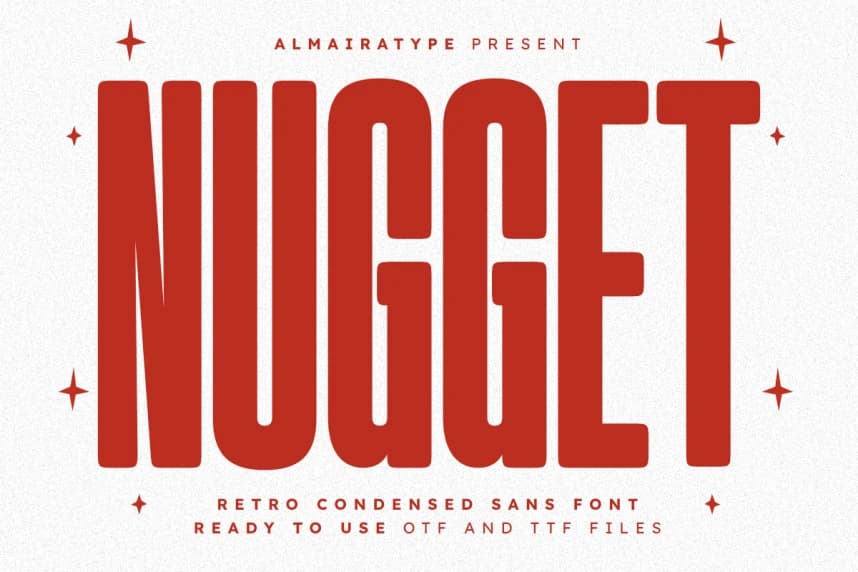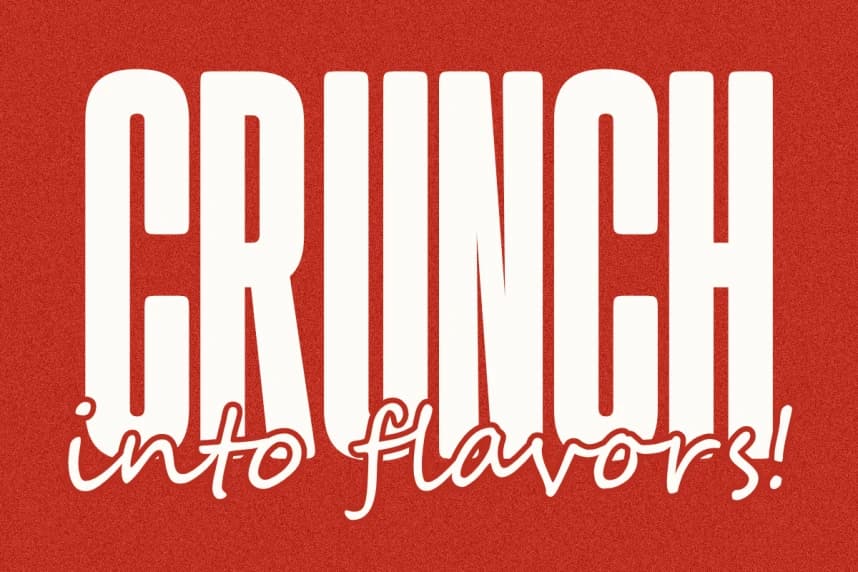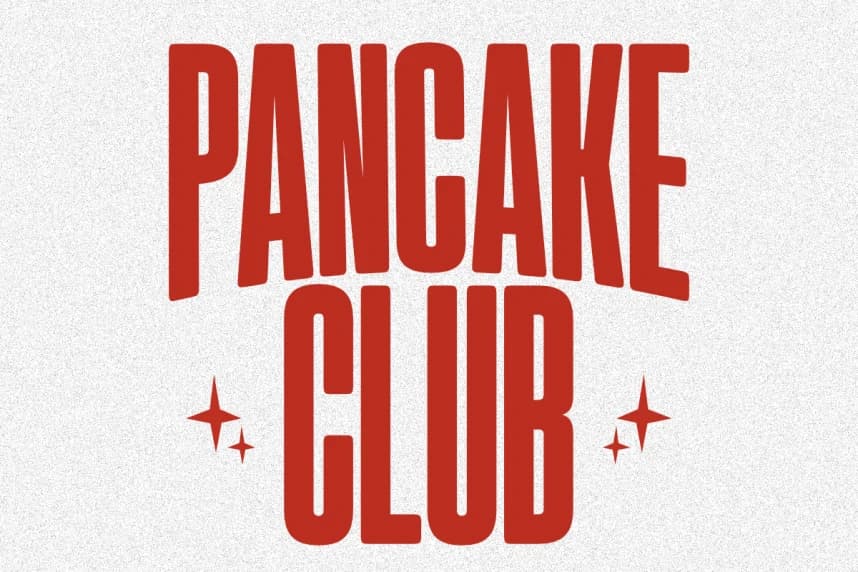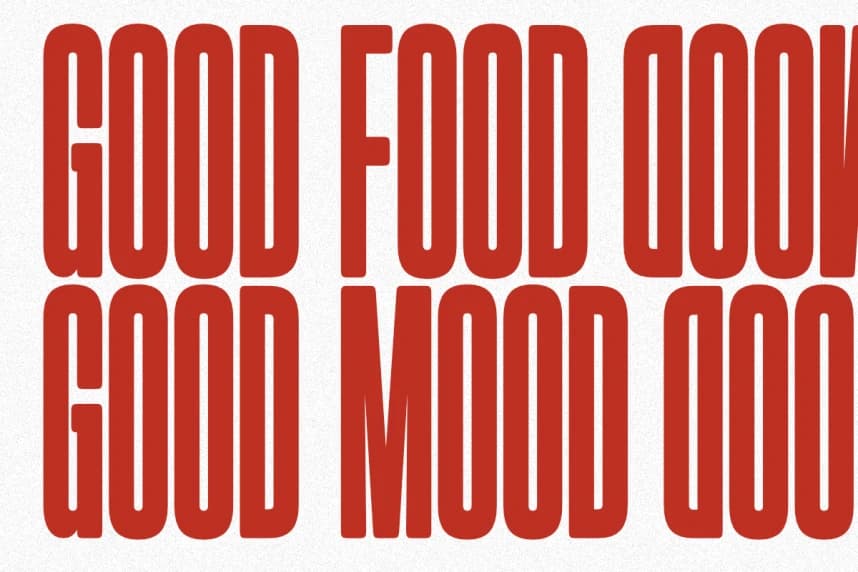
Nugget Font
Nugget Font is a bold and versatile retro condensed sans font that masterfully blends vintage nostalgic charm with a clean, modern aesthetic. Designed specifically for high-impact visual storytelling, its tall and solid structure commands attention while maintaining a sleek